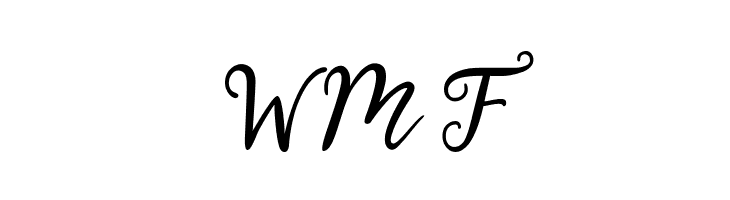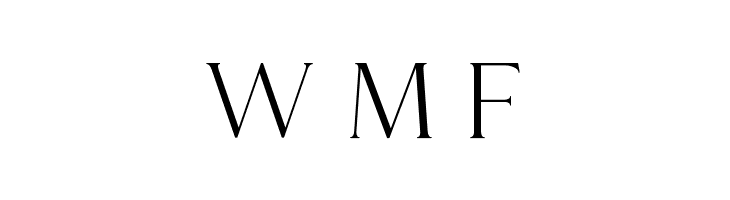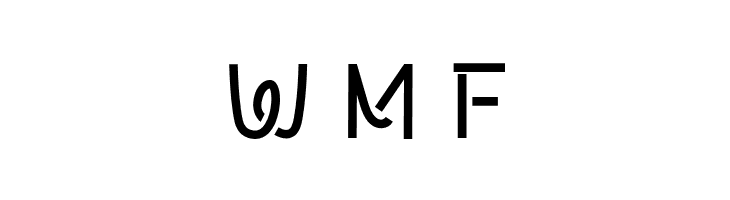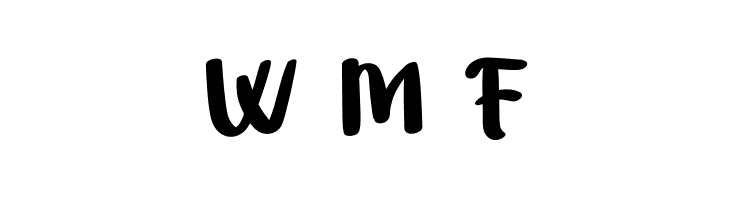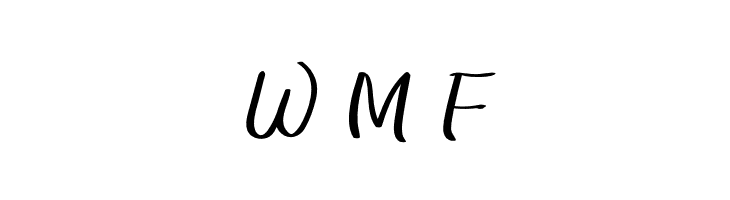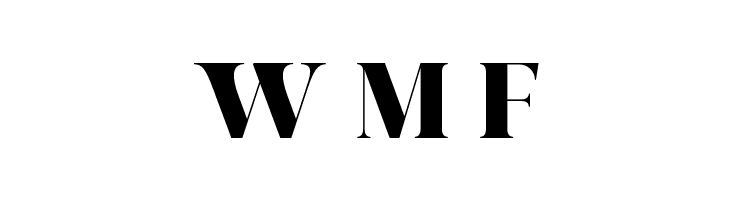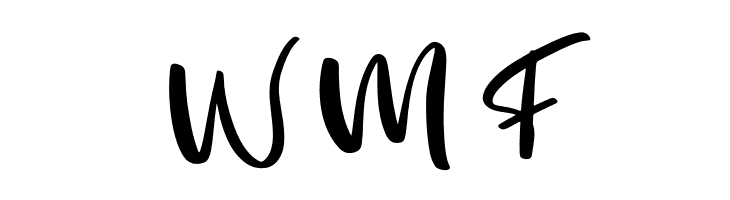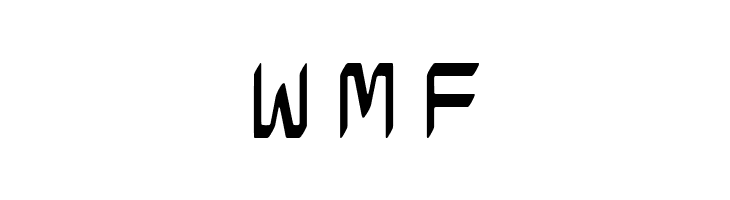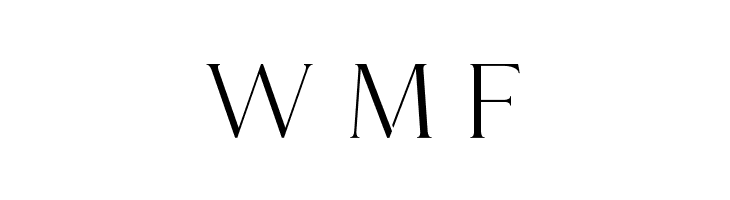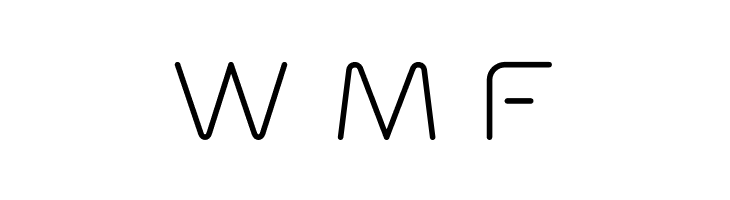
A bold, elegant script font with flowing, connected strokes and decorative flourishes.
An elegant, flowing script font with ornate, cursive letterforms.
An elegant serif font with classic, refined characters and slight stroke contrast.
A modern, geometric font with playful elements and clean lines.
A bold, playful font with a handwritten style and rounded edges.
A dynamic and flowing script font with elegant curves and varying stroke thickness.
A delicate, elegant handwritten font with fluid strokes and a sophisticated style.
An elegant and flowing script font with bold, cursive letterforms and artistic flourishes.
A high-contrast, elegant font with dramatic flourishes and refined style.
A playful, hand-drawn font with intricate patterns and doodles.
A modern, cursive font with elegant, flowing strokes and a slight slant.
A bold, high-contrast serif font with modern elegance.
A bold, expressive handwritten font with fluid strokes and a modern vibe.
A bold, modern font with angular uppercase and rounded lowercase letters.
A modern, geometric font with clean lines and a slightly condensed style.
An elegant and sophisticated cursive script font with fluid, connected letters.
A high-contrast, elegant serif font with sharp serifs and modern style.
A classic serif font with elegant strokes and refined proportions.
A graceful cursive font with elegant, flowing characters.
A graceful and flowing script font with elegant, fluid strokes.
A modern, geometric font with rounded edges and a sleek design.
A bold, rugged font with a distressed, grungy appearance.
A playful, bold, handwritten font with a whimsical and inviting style.
A playful, bubble-like font with bold, rounded characters.
A decorative serif font with ornate uppercase letters and classic lowercase design.
A bold, hand-drawn font with dynamic, irregular strokes and an artistic flair.
A dynamic handwritten font with fluid and expressive strokes.
A delicate, elegant handwritten font with flowing cursive letterforms.
Elegant cursive script with a handwritten style.
Bold, playful sans-serif with hand-drawn, whimsical style.
A bold, wide, and italicized font with angular, dynamic characters.